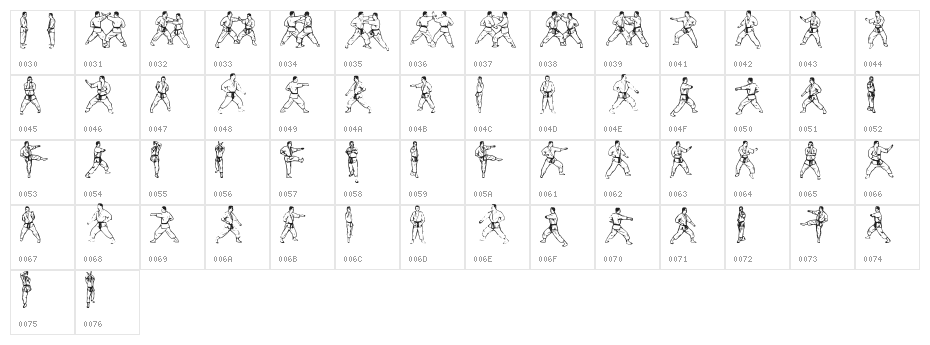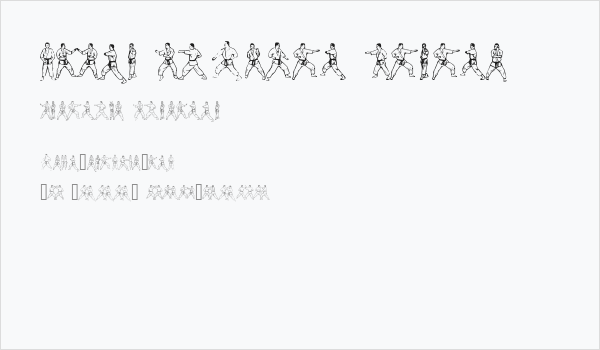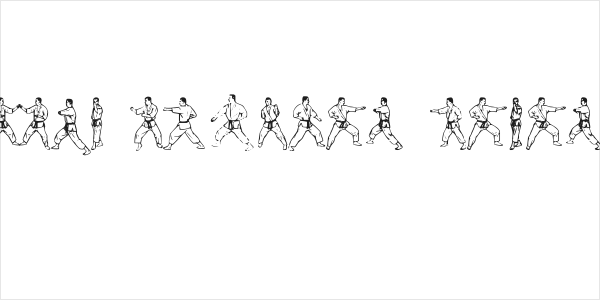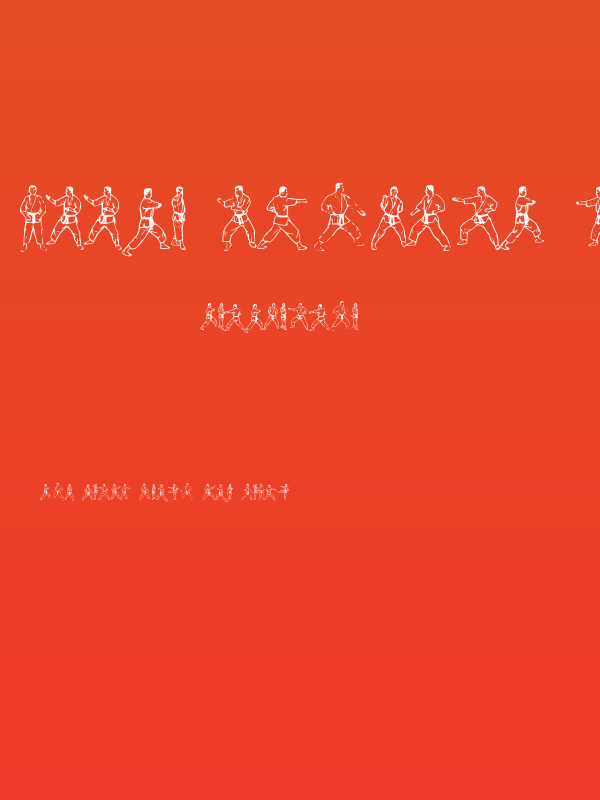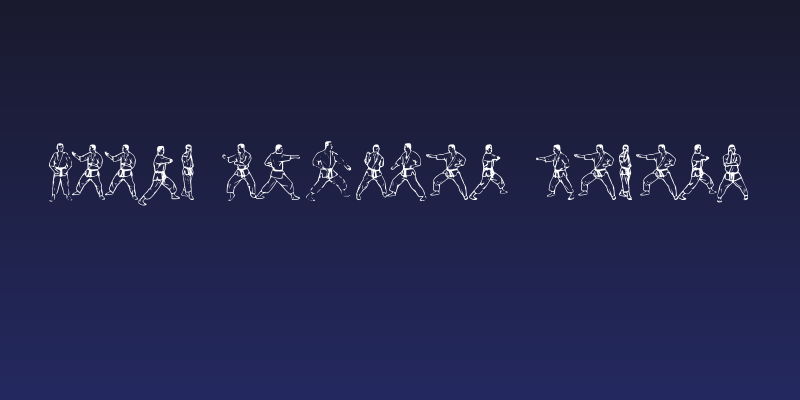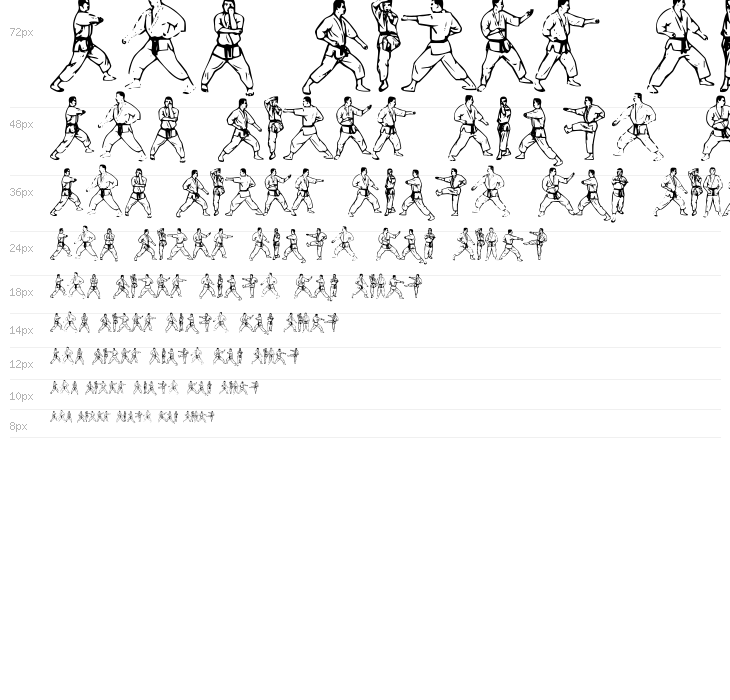
McCoy Dingbat Karate Font
McCoy Dingbat Karate Description
This is a decorative dingbat font featuring a series of karate-themed illustrations. Each character is represented by a unique pose or action related to martial arts, showcasing dynamic movements and stances. The illustrations are detailed, capturing the essence of karate with precision and style. The font is designed to add a thematic and artistic touch to projects that require a martial arts motif. It is not a traditional alphanumeric font but rather a collection of images that can be used creatively in various design contexts.
| Use Case | Logos, Posters, Themed Designs |
| Proposed Projects | Ideal for martial arts event posters, themed invitations, or educational materials related to karate. |